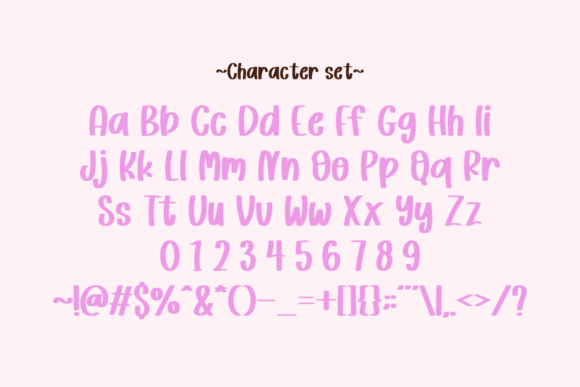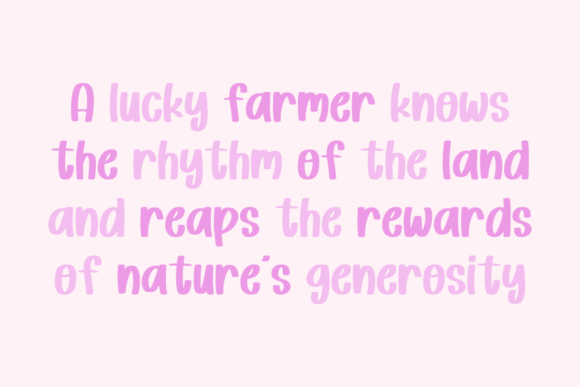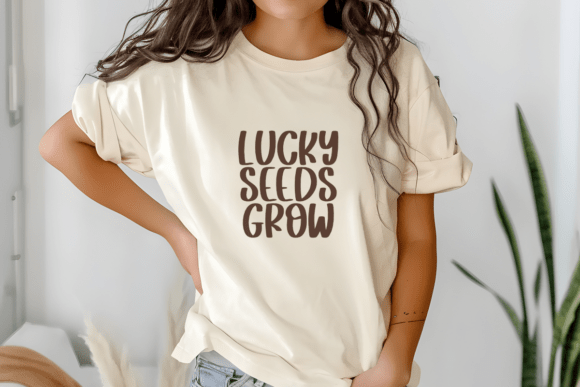
Introduction to Lucky Farmer Font
Lucky Farmer is a cute handwritten font full of warmth and charm.
With its rounded, playful strokes and soft curves, it’s perfect for kids’ designs, branding, crafts, greeting cards, and anything that needs a lighthearted, friendly vibe Whether you’re designing for a farm-themed project or just want to add a smile to your text, this font is the lucky pick.
Key Features of Lucky Farmer Font
Why Choose Lucky Farmer Font?
Lucky Farmer Font offers exceptional quality and versatility, making it a valuable addition to your design toolkit. Whether you’re creating for personal projects or commercial use, Lucky Farmer Font delivers professional results.